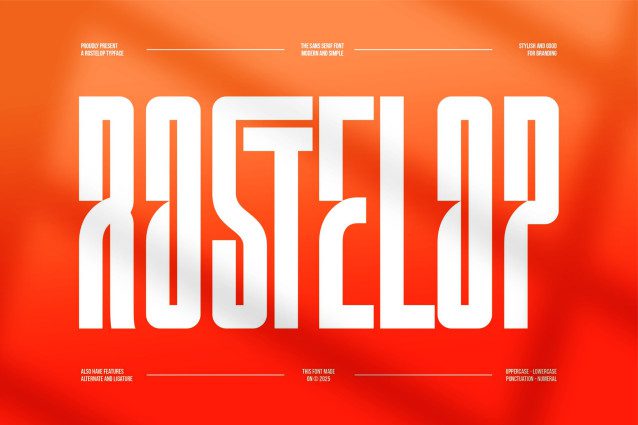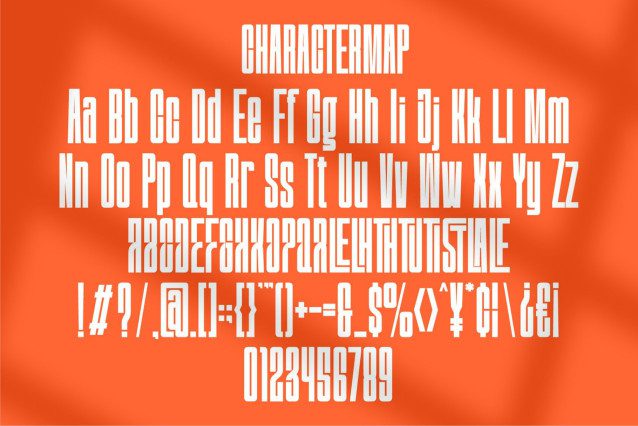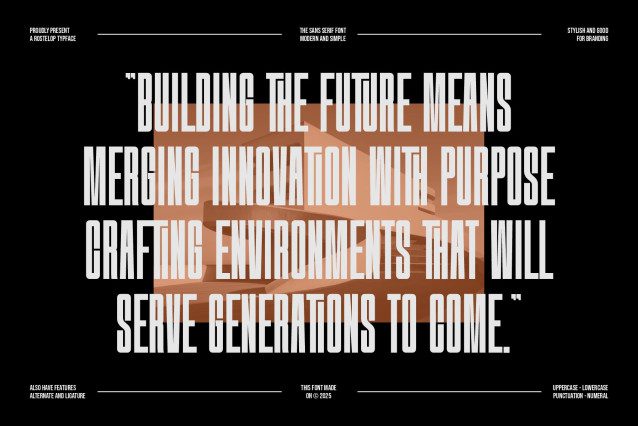
Rostelop Font
Introducing Rostelop is tall sans serif Font modern, trendy and stylish. It has a unique character. It is perfect to be combined with invitation card designs, company logos, movie titles, movie names, business cards, book titles, brand names and various other designs.